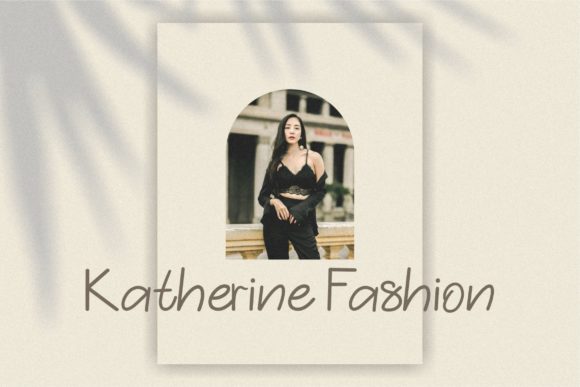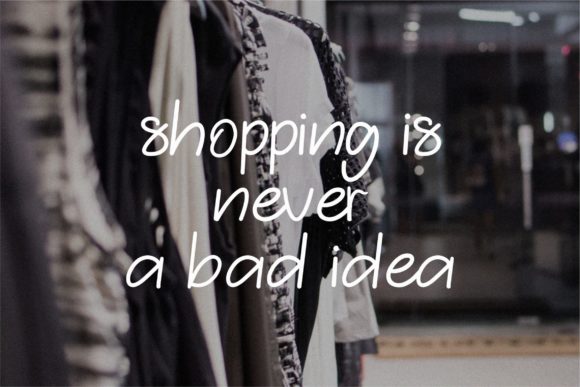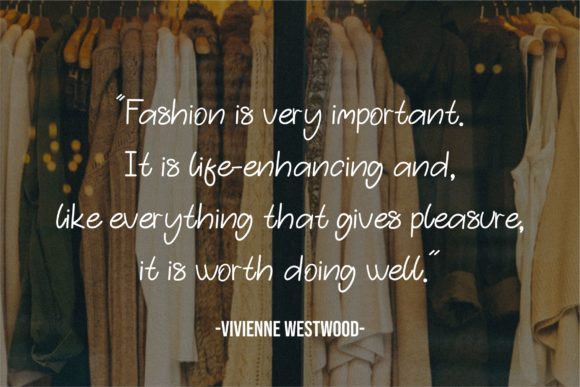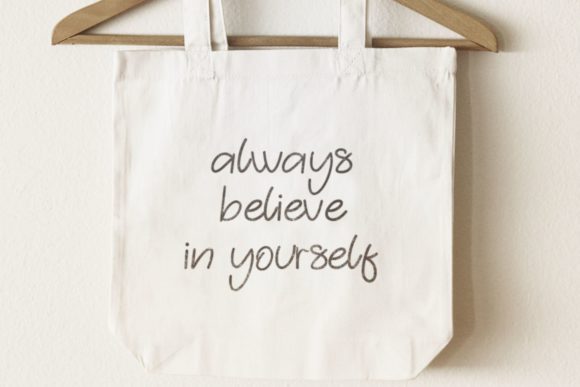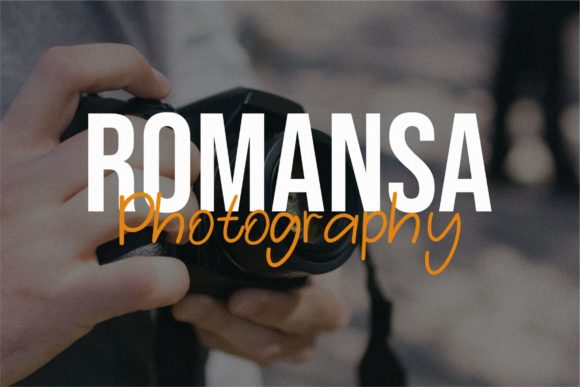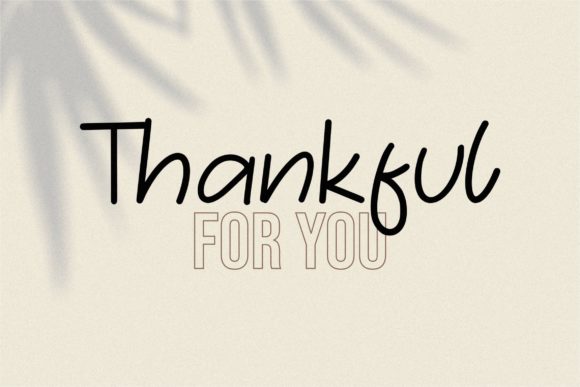
Introduction to Impeccable Font
As a designer, there’s nothing quite like the thrill of bringing a creative project to life. You’ve spent hours pouring over sketches, refining your vision, and selecting the perfect design resource – and then, it hits you: the font that will tie everything together. For many of us, that font is the Impeccable Font. Its delicate, elegant, and flowing handwritten style is the perfect match for a wide range of designs, from elegant wedding invitations to modern blog headers.
But what makes the Impeccable Font so special? Its beautiful and well-balanced characters make it a high-quality addition to any project, and its versatility means it’s the perfect choice for designers of all levels. Whether you’re working on a free download or a paid commission, this font is sure to deliver results that exceed your expectations.
Key Features of Impeccable Font
- High-quality design resource with a transparent background, perfect for creative projects
- Designed to be highly legible and versatile, making it suitable for both digital and print media
- Features a unique, modern aesthetic with clean lines and subtle flair, ideal for creative professionals
- Includes a comprehensive character set, covering a wide range of languages and symbols
Honest Review: Impeccable Font
I recently stumbled upon the Impeccable Font, and I must say it’s been a game-changer for my design projects. As a designer, I’m always on the lookout for high-quality fonts that can elevate my creative work. The Impeccable Font delivers.
- ✨ Beautifully crafted characters with a sleek, modern design
- ✨ Highly versatile, suitable for a wide range of creative projects
One of the standout features of the Impeccable Font is its ability to work seamlessly with transparent backgrounds. This has been a lifesaver for me when working on designs that require a high level of customization.
- Limitations:
- ⚠️ Limited font sizes available, which may be a concern for larger designs
- ⚠️ Some characters may not be compatible with certain operating systems
Overall, I’m thoroughly impressed with the Impeccable Font. Its high quality, versatility, and ease of use make it an excellent addition to any designer’s toolkit. If you’re in the market for a reliable design resource, I highly recommend giving it a try.
Tips and Best Practices
To get the most out of Impeccable Font, use it in conjunction with a transparent background to create a seamless and professional look.
Impeccable Font is perfect for:
Corporate branding and identity
Business reports and presentations